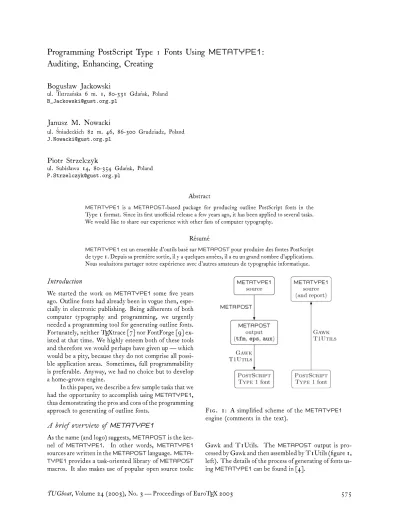
Auditing, Enhancing, Creating
Abstract
METATYPE1 is a METAPOST-based package for producing outline PostScript fonts in the Type 1 format. Since its first unofficial release a few years ago, it has been applied to several tasks. We would like to share our experience with other fans of computer typography.
Résumé
METATYPE1est un ensemble d’outils basé surMETAPOSTpour produire des fontes PostScript de type 1. Depuis sa première sortie, il y a quelques années, il a eu un grand nombre d’applications. Nous souhaitons partager notre expérience avec d’autres amateurs de typographie informatique.
Introduction
We started the work on METATYPE1 some five years
ago. Outline fonts had already been in vogue then, espe-cially in electronic publishing. Being adherents of both computer typography and programming, we urgently needed a programming tool for generating outline fonts. Fortunately, neither TEXtrace [7] nor FontForge [9] ex-isted at that time. We highly esteem both of these tools and therefore we would perhaps have given up — which would be a pity, because they do not comprise all possi-ble application areas. Sometimes, full programmability is preferable. Anyway, we had no choice but to develop a home-grown engine.
In this paper, we describe a few sample tasks that we had the opportunity to accomplish usingMETATYPE1,
thus demonstrating the pros and cons of the programming approach to generating of outline fonts.
A brief overview of METATYPE1
As the name (and logo) suggests,METAPOSTis the
ker-nel of METATYPE1. In other words, METATYPE1
sources are written in theMETAPOSTlanguage.META -TYPE1provides a task-oriented library ofMETAPOST
macros. It also makes use of popular open source tools:
F. 1: A simplified scheme of the METATYPE1 engine (comments in the text).
Gawk and T1Utils. The METAPOST output is
pro-cessed by Gawk and then assembled by T1Utils (figure 1, left). The details of the process of generating of fonts us-ingMETATYPE1can be found in [4].
An important part of theMETATYPE1package is a
(freestanding) converter from the PostScript Type 1 for-mat toMETATYPE1 source, pf2mt1 (figure 1, right),
which also makes use of Gawk and T1Utils. As we shall see, it proves useful for auditing of fonts.
Many roads to the creation of fonts
Since we are no font designers whatsoever, we will as-sume that the design of a typeface is given. Still, the source of a font may be given in various forms — from lead prints to tentatively ready digital form. In the for-mer case, one has to create a digitized version from scratch; in the latter, an audit of a font may prove suf-ficient. Below, we discuss a few different approaches to coping with fonts, starting from the simplest one, that is, from auditing.
Audit A useful yet a very simple tool for auditing of a font is the already mentioned converter from PostScript Type 1 format to human readable (and thus machine readable)METATYPE1sources. We assume, of course,
that the disassembling of a given font is legal.
Faulty hinting is perhaps most typical in freely avail-able fonts. Even such diligently prepared fonts as the Computer Modernfamily in the PostScript Type 1 for-mat, released as a freely available product by the Ameri-can Mathematical Society in 1997, contain questionable hints.
Prior to the presentation of an example, let us briefly sketch the idea of the PostScript Type 1 hinting. Hints are special instructions, allowed only in a font pro-gram, providing additional information useful during the process of rendering of a glyph. There are two kinds of hints: vertical and horizontal; both convey information concerning the preferred width and position of a stem (which, in general, may have a varying width).
Consider now, as an example, the font cmsy10
from theAMSComputer Modernfamily. The converter
pf2mt1 producesMETATYPE1 sources, and, which is
important here, a log file; here is an excerpt from the log (the first number denotes the position of a stem, the sec-ond one — width):
The log indicates that there is something wrong with hints: why should such a regular character as inter-sectionsqhave hints of different width (see figure 2)?